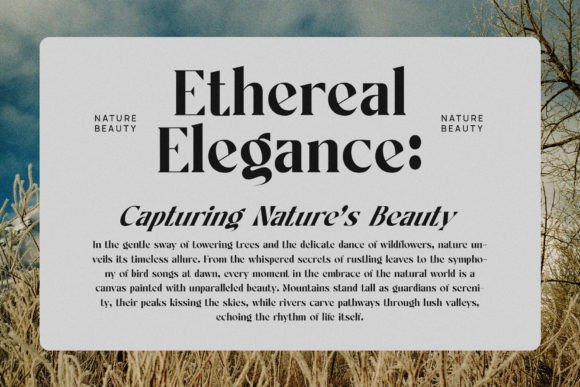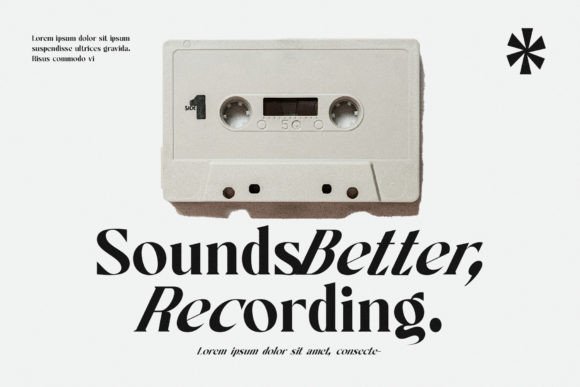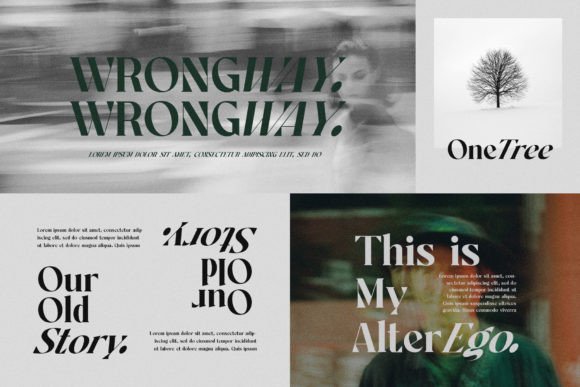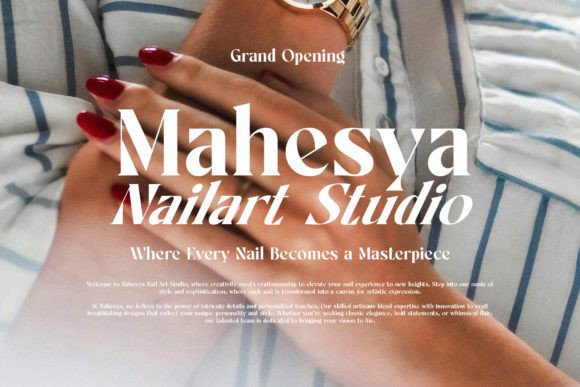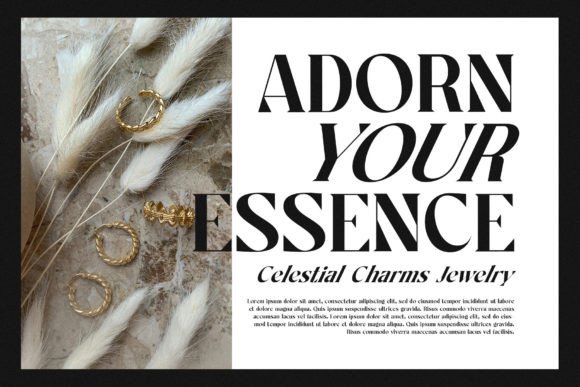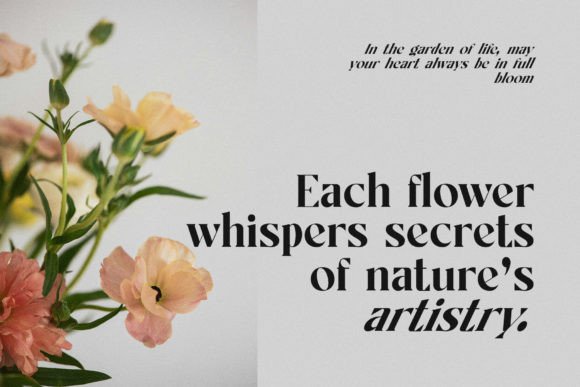
Unveiling the City Hall History Font: A Timeless Elegance
The City Hall History font is a stunning example of modern serif typography, drawing inspiration from the rich history and ancestry of Italian type. This elegant font is a masterful blend of classic and contemporary styles, making it a versatile choice for designers and crafters. In this article, we’ll delve into the unique characteristics of the City Hall History font, its features, and the various ways it can be used to elevate your designs.
A Brief History of City Hall History Font
The City Hall History font is a nod to the classic Italian typefaces of the past, with a modern twist. Its design is influenced by the traditional serif fonts of Italy, which were known for their elegance, sophistication, and grandeur. The font’s creator aimed to capture the essence of these classic typefaces and infuse them with a modern sensibility, resulting in a font that is both timeless and contemporary.
Key Features of City Hall History Font
The City Hall History font boasts several distinctive features that set it apart from other serif fonts. Some of its notable characteristics include:
- Significant contrast among thick and thin strokes: This feature gives the font a sense of dynamism and elegance, making it perfect for headlines, titles, and other display text.
- Thin hair-line serif: The font’s delicate serif adds a touch of sophistication and refinement, making it suitable for high-end designs and luxury brands.
- Vertical pressure: This feature gives the font a sense of strength and stability, making it ideal for use in logos, billboards, and other large-scale applications.
- Reversed diagonal axis style: This unique feature sets the City Hall History font apart from other serif fonts. It adds a touch of enthusiasm and style to the font, making it perfect for designs that require a bit of flair.
Uses of City Hall History Font
The City Hall History font is an incredibly versatile typeface that can be used in a wide range of applications. Some of the ways you can use this font include:
- Logos and branding: The font’s elegance and sophistication make it perfect for logos, wordmarks, and other branding applications.
- Billboard advertising: The font’s boldness and vertical pressure make it ideal for large-scale displays, such as billboards and posters.
- Fashion labels: The font’s stylish and modern aesthetic make it a great choice for fashion labels, packaging, and editorial designs.
- Posters and editorials: The font’s expressiveness and elegance make it perfect for use in posters, magazines, and other editorial designs.
Why Choose City Hall History Font?
So, why should you choose the City Hall History font for your next design project? Here are just a few reasons:
- Uniqueness: The font’s reversed diagonal axis style and elegant features make it stand out from other serif fonts.
- Expressiveness: The font’s significant contrast among thick and thin strokes, thin hair-line serif, and vertical pressure make it incredibly expressive and versatile.
- Engagement: The font’s stylish and modern aesthetic are sure to grab the attention of your audience and leave a lasting impression.
In conclusion, the City Hall History font is a stunning example of modern serif typography. Its unique features, elegance, and expressiveness make it a versatile choice for designers and crafters. Whether you’re looking to create a logo, billboard, or editorial design, this font is sure to elevate your work and leave a lasting impression on your audience.